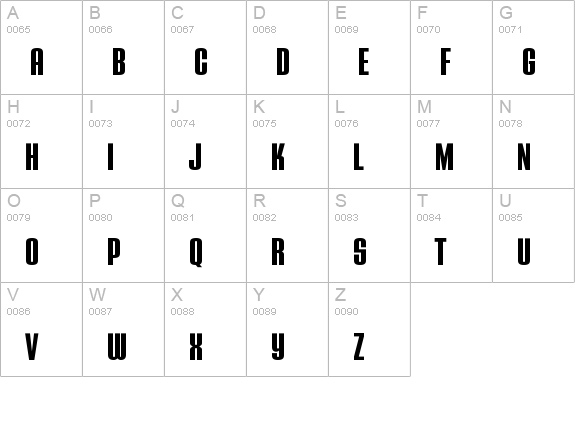
HouseGothicHG23Cond BOLD3 Font Details
HouseGothicHG23Cond BOLD3 is a strong, high-contrast variant in the HouseGothicHG23Cond typeface family \xE2\x80\x94 well suited to headlines, attention-grabbing titles, and strong calls-to-action.
HouseGothicHG23Cond BOLD3 is a striking and bold font that exudes a sense of modernity and style. Its clean lines and sharp edges make it perfect for creating eye-catching designs that demand attention. This font is ideal for headlines, posters, and any project that requires a strong and impactful typographic statement. The HouseGothicHG23Cond BOLD3 font is available for free download at FontsMarket.com, making it easily accessible to anyone looking to add a touch of boldness to their designs. Whether you're a professional designer or a hobbyist looking to spice up your projects, this font is sure to inspire creativity and make your work stand out. With its bold and commanding presence, HouseGothicHG23Cond BOLD3 is a versatile font that can be used in a variety of design projects. Its unique style and modern aesthetic set it apart from other fonts, making it a must-have for anyone looking to make a bold statement. Download HouseGothicHG23Cond BOLD3 for free today and take your designs to the next level.